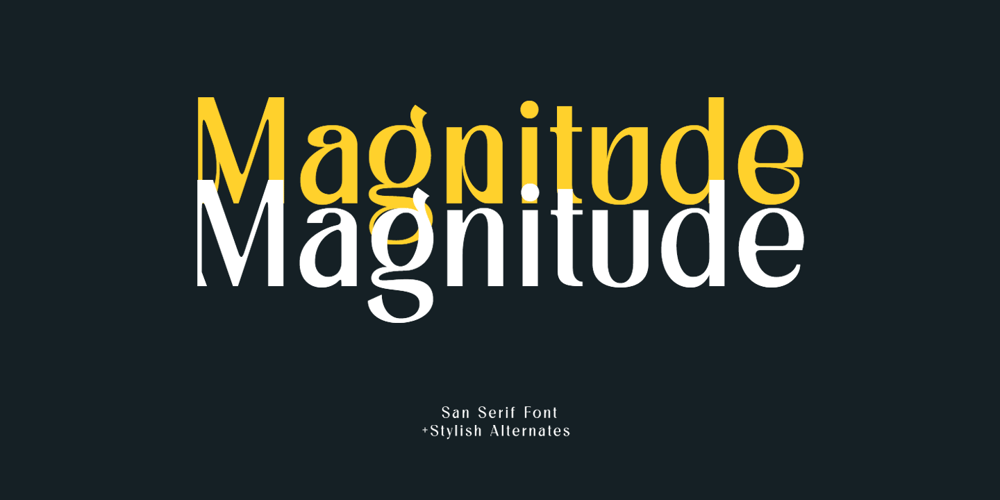
Magnitude Font Family was designed by Hendry Juanda and published by Letterhend. Magnitude contains 1 styles and family package options. Magnitude is a stylish sans serif font with unique letterform. The style make this font looks great and standout for tittle, headline, logo, etc. Perfectly to be applied to the other various formal forms such as invitations, labels, logos, magazines, books, greeting / wedding cards, packaging, fashion, make up, stationery, novels, labels or any type of advertising purpose.Features : uppercase & lowercase numbers and punctuation multilingual alternates & ligatures PUA encoded We highly recommend using a program that supports OpenType features and Glyphs panels like many of Adobe apps and Corel Draw, so you can see and access all Glyph variations. How to access opentype feature : letterhend.com/tutorials/using-opentype-feature-in-any-software/